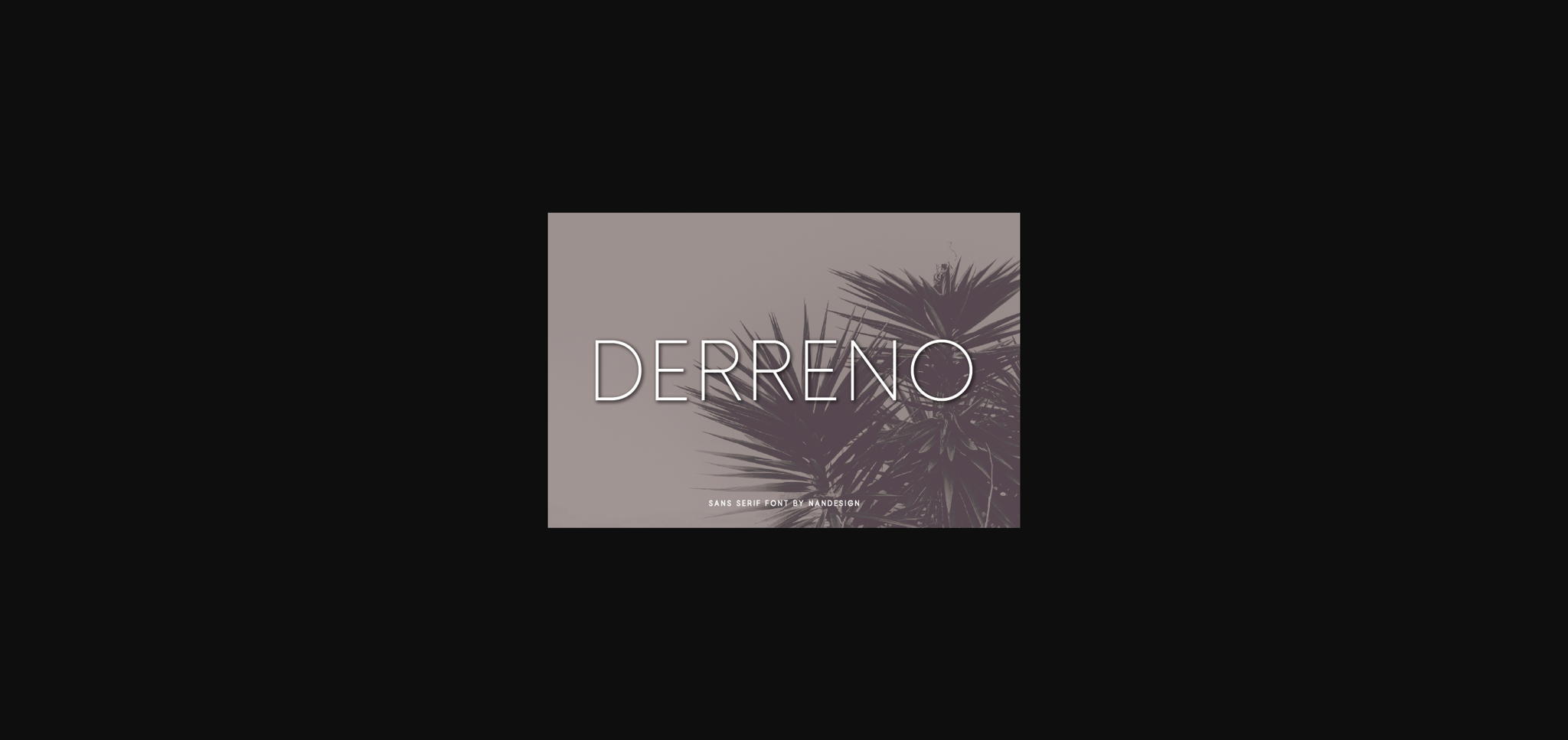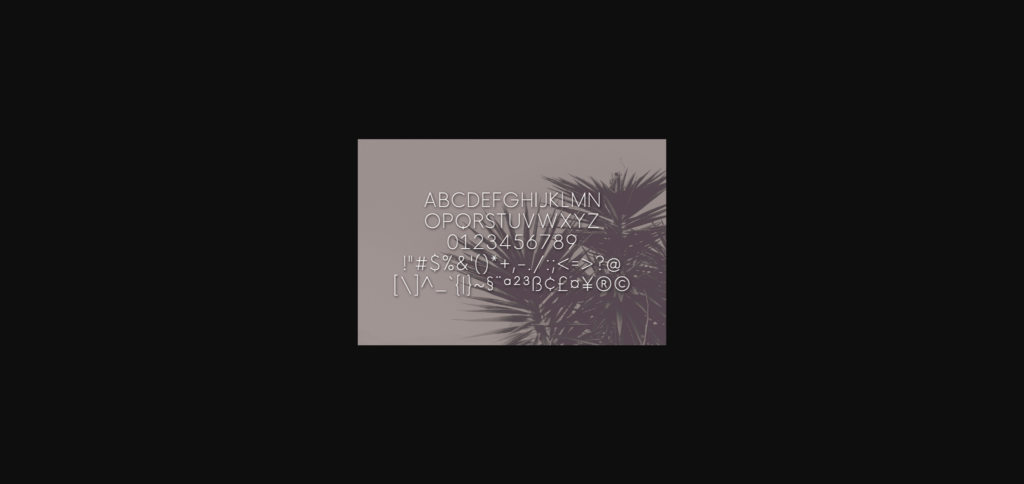
About Derreno Font
Derreno is a minimal and thin lettered sans serif font. It can be matched to an incredibly wide range of projects, such as displays, headers, invitations, save the dates, weddings, and so much more!